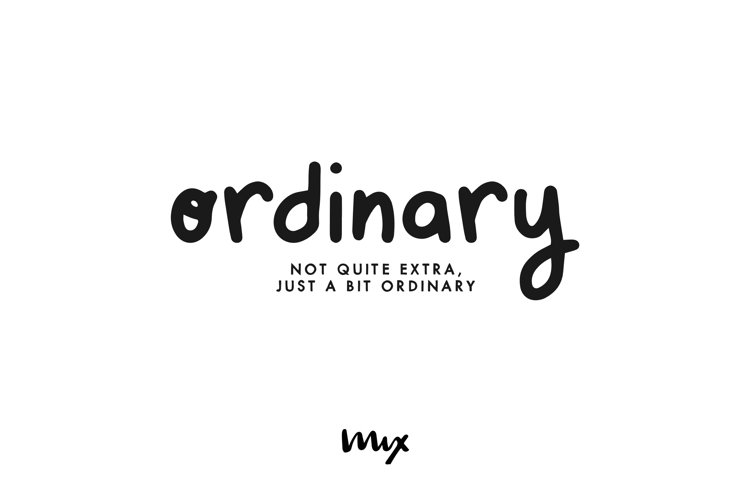
Created By Mikko Sumulong
Ordinary - A Loopy Handwritten Font
Mix Ordinary
MIX ORDINARY  is a cutesy, swirly monoline print font that adds a touch of quirk and Sassitude to your designs. With its mix of basic letters and a few quirky ones, this font strikes the perfect balance between plain and cute. Whether you want to add a playful twist to your projects or simply want a font that stands out, MIX ORDINARY is the perfect choice.